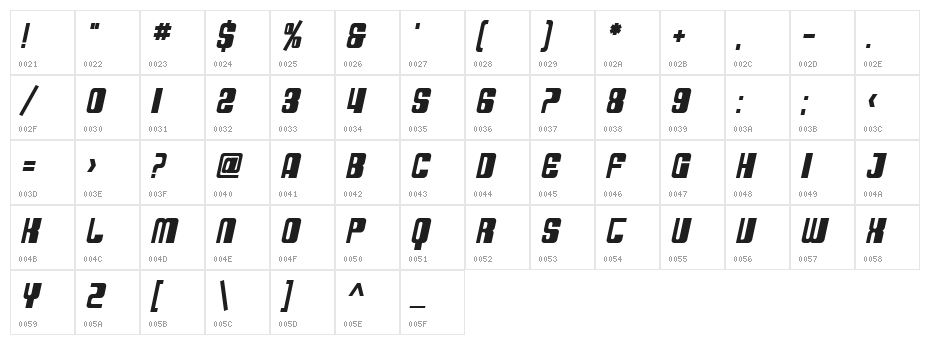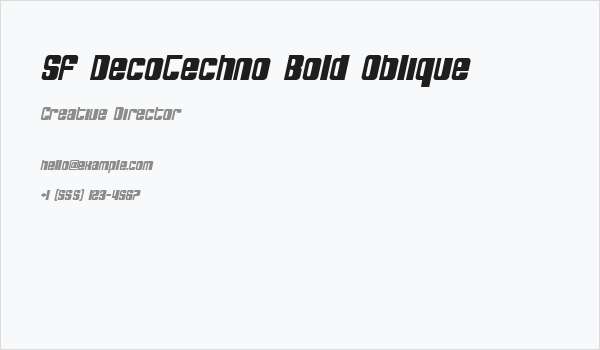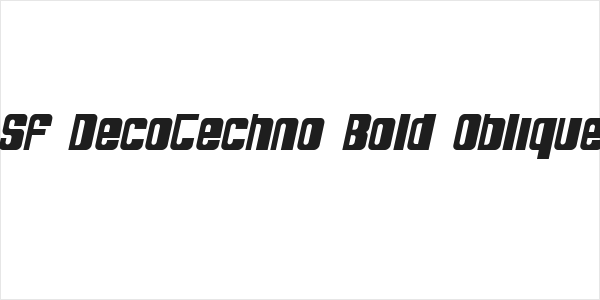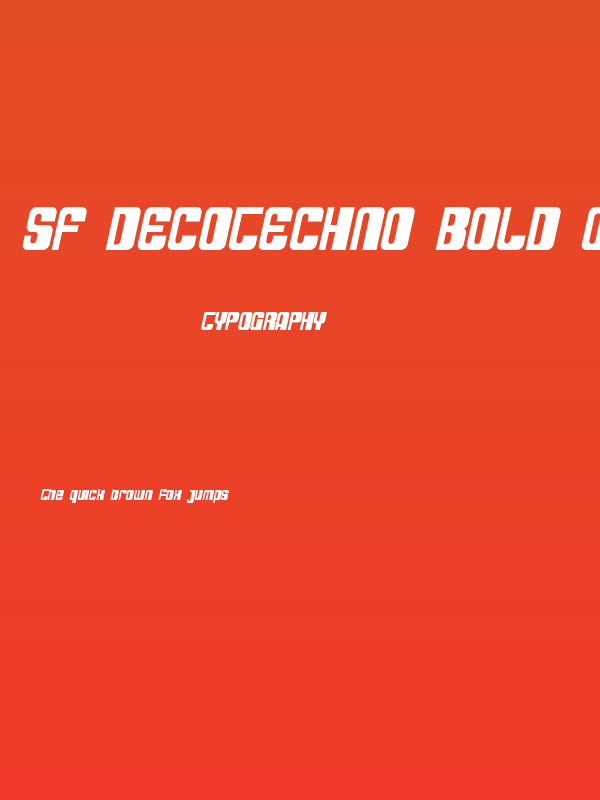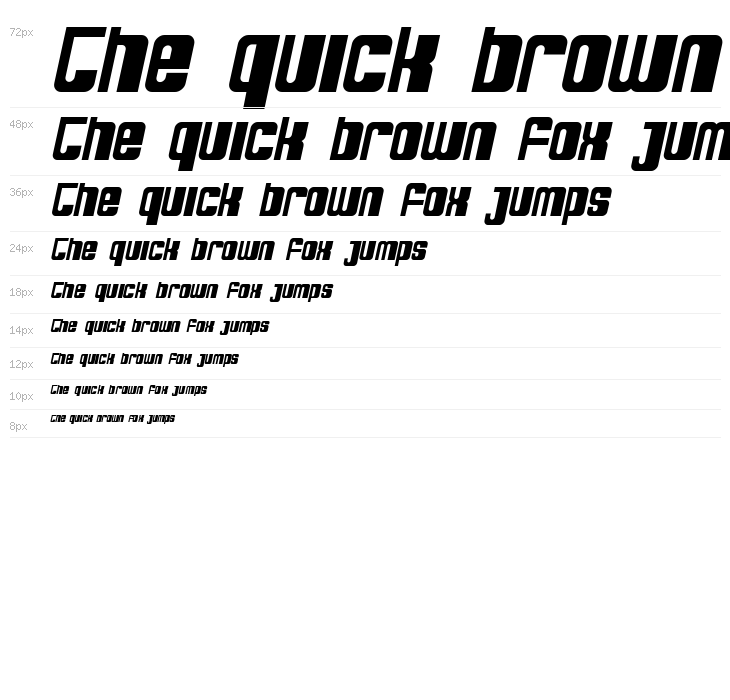
SF DecoTechno Bold Oblique Font
SF DecoTechno Bold Oblique Description
This font features a bold and oblique style with a distinctly futuristic and techno-inspired design. The characters are wide and angular, with sharp edges and a strong presence. The uppercase and lowercase letters maintain a consistent slant, enhancing the dynamic and forward-leaning appearance. Numbers and special characters follow the same stylistic cues, ensuring uniformity across all glyphs. The font's bold weight and oblique orientation make it particularly eye-catching, suitable for projects that require a modern and assertive look.
| Proposed Projects | Ideal for technology branding, sci-fi posters, video game titles, and modern advertising campaigns. |